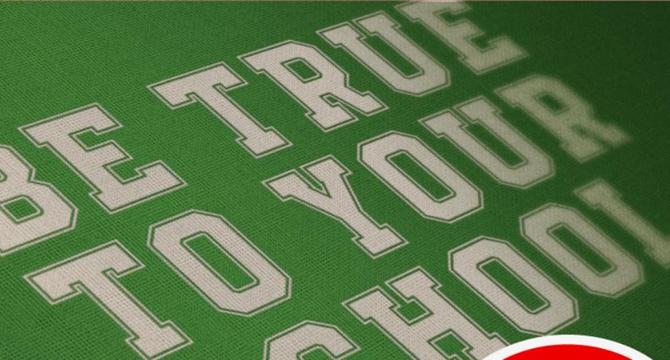
<ul data-eligibleForWebStory="false">From varsity to athletic brands, discover 40 fonts perfect for college-themed designs.Including classic varsity, modern athletic, and tech-inspired typefaces for various design needs.Fonts like Varsity Team, Campus, and Striger offer unique styles for sports and branding.Explore a variety of fonts suitable for sports merchandise, posters, logos, and more.Get ready to enhance your college-themed projects with these creative font options.